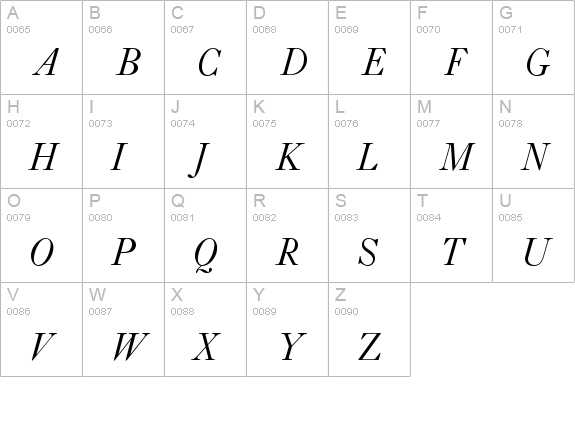
CaslonC37-LightItalic Font Details
CaslonC37-LightItalic is a beautiful and elegant font that exudes sophistication and grace. With its delicate slant and graceful curves, this font is perfect for adding a touch of refinement to any design project. The light and airy quality of CaslonC37-LightItalic makes it ideal for use in a variety of applications, from invitations to branding to editorial design. What sets CaslonC37-LightItalic apart is its timeless appeal and classic elegance. Whether you're looking to add a touch of sophistication to a wedding invitation or create a polished look for a magazine layout, this font is sure to impress. Its versatility and readability make it a favorite among designers and typographers alike. Best of all, CaslonC37-LightItalic is available for free download at FontsMarket.com. This means you can easily access this stunning font and use it in your projects without any cost. Don't miss out on the opportunity to enhance your designs with the timeless beauty of CaslonC37-LightItalic. Download it today and elevate your creative projects to new heights.